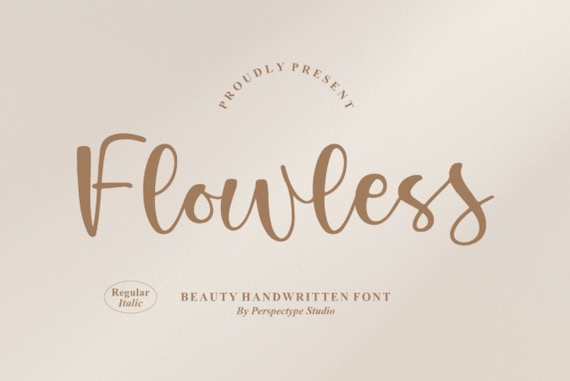
Flowless is a modern handwritten script font that was made and shared by Perspectype. This script font is PUA encoded which means you can access all of the glyphs and swashes with ease. And it looks gorgeous for a pool of designs such as packaging products, invitation cards, flyers, mockups, event posters, and anything else that requires high-quality vibes.
Flowless Handwritten Script Font